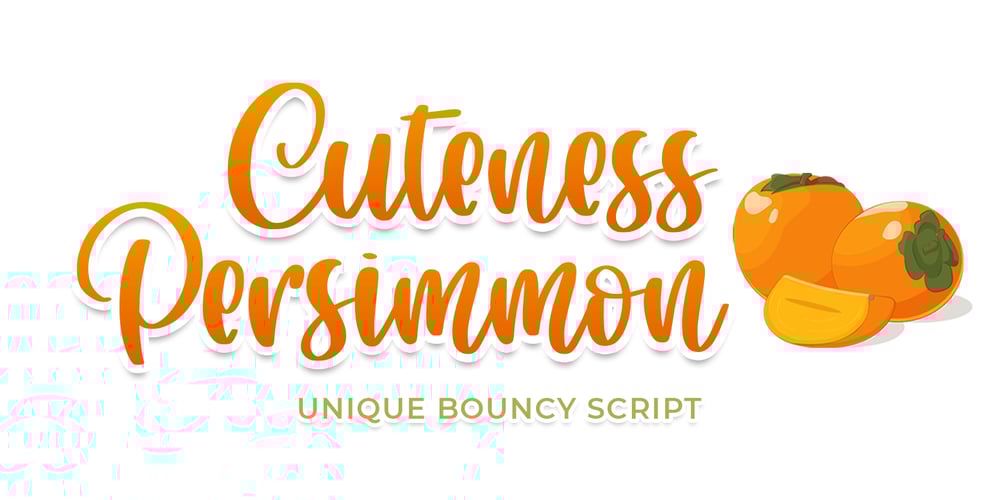
Cuteness Persimmon
Cuteness Persimmon font
Cuteness Persimmon Font Family was designed by Abo Daniel and published by Abo Daniel. Cuteness Persimmon contains 1 styles and family package options. introducingCUTENESS PERSIMMON-unique bouncy script-it is great for branding, packaging, quotes, wedding card, logo, signature, tote bag design, card, banner, and anything craft project.I created some doodles to make this font perfect.you can add underscore twice after a to k.Features:- Uppercase- Lowercase- Numeral- Multilingual- doodles- PUA encodedI hope you love it.regards,Abo Daniel Studio